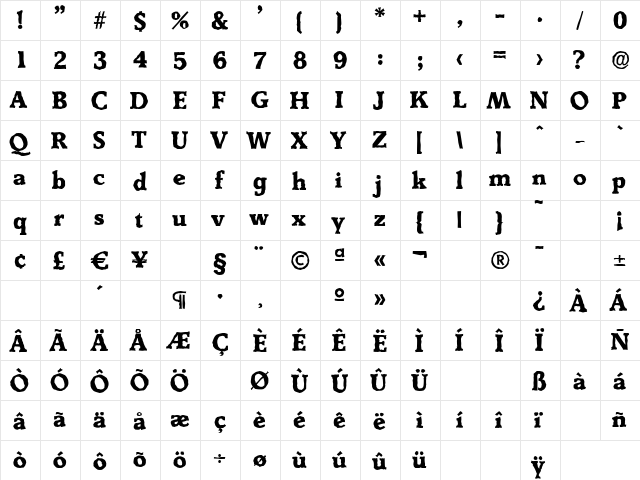
DerringerAntique-Xbold Regular
Design Context for DerringerAntique-Xbold Typeface
DerringerAntique-Xbold has the warm character of retro typography — evoking diners, record sleeves, and the golden age of print advertising. Its bold stroke weight gives it real presence on the page.
Perfect for vintage-inspired branding, retro packaging, nostalgia campaigns, and period-accurate editorial design.
Font Pairing: Combine DerringerAntique-Xbold with a simple slab or neutral sans — period-accurate companions reinforce the vintage feel without competing for attention.
Pro Tip: Use DerringerAntique-Xbold for headlines and pull quotes rather than body copy — its personality is best appreciated in short, focused bursts.